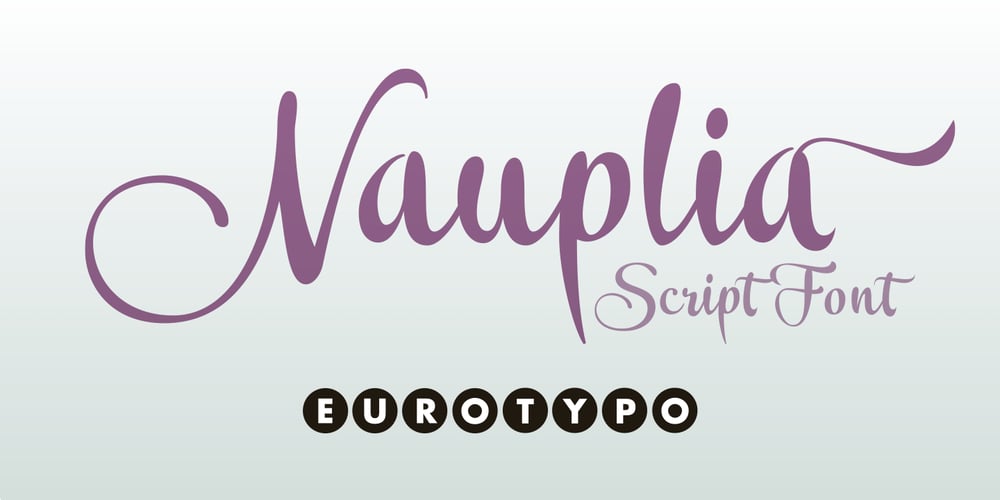
Nauplia Font Family was designed by Olcar Alcaide and published by Eurotypo. Nauplia contains 1 styles and family package options. Nauplia is an organic script font, specially designed for use in logotypes, advertising and packaging. It is interesting to note the use of free-flowing lettering to perform its own eye-catching, connected and unconnected.Nauplia contain 450 glyphs with full OpenType features: swashes, ligatures, stylistics alternates and much more.Nauplia is a Greek city, its name according to Strabo, derives from the mythological character Nauplio, the son of Poseidon and Amimone.